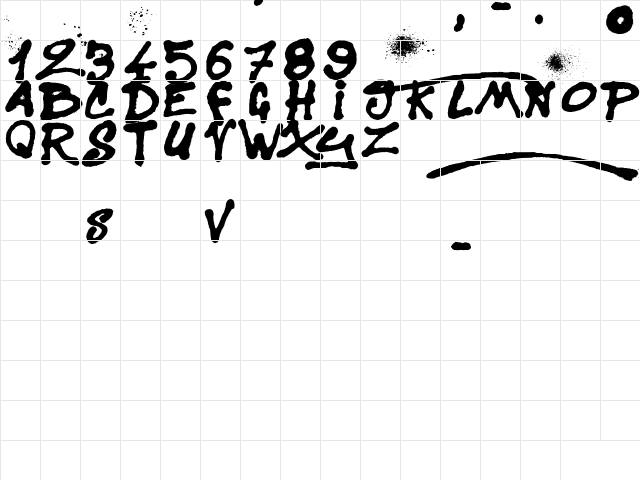
Sister Spray Regular
Design Context for Sister Spray
Sister Spray is a composed and adaptable typeface that performs quietly and consistently across a wide range of design contexts.
Pro Tip: Use Sister Spray in both headline and body roles to test its range before committing to a single application.